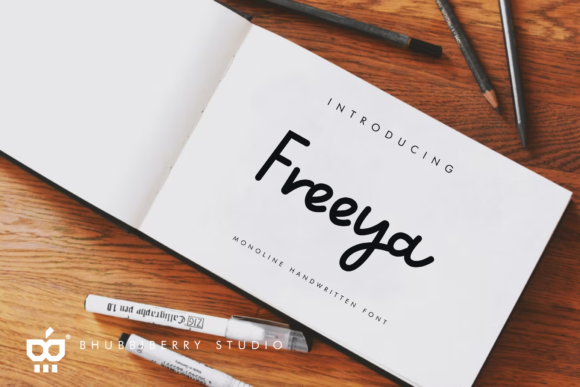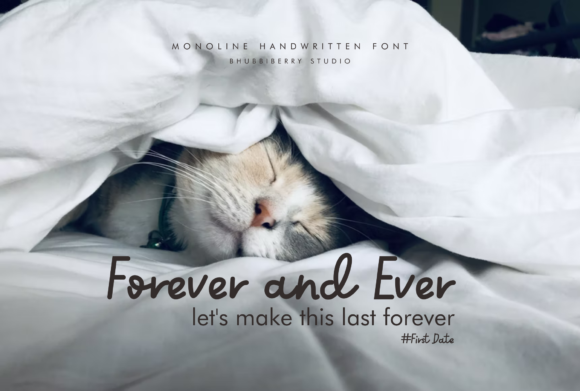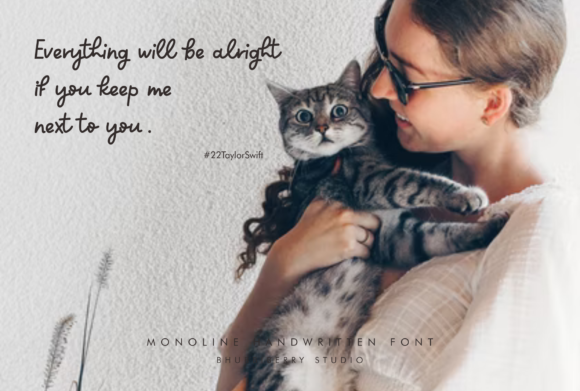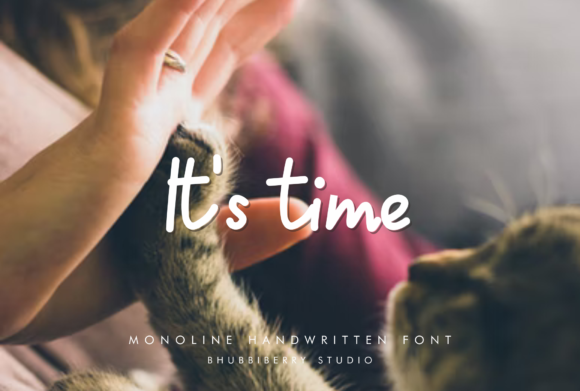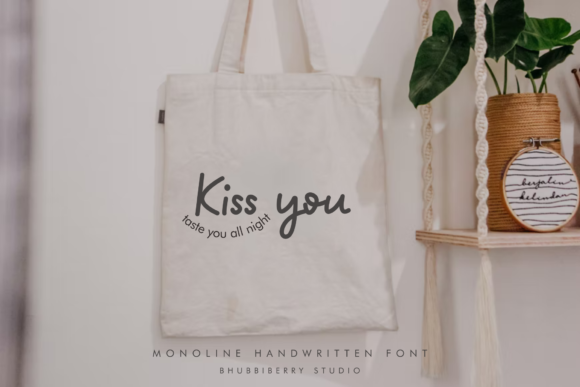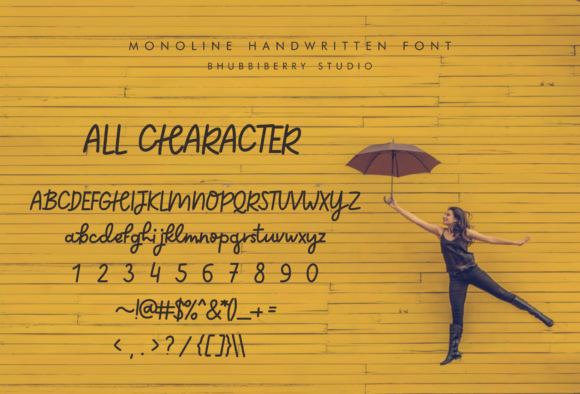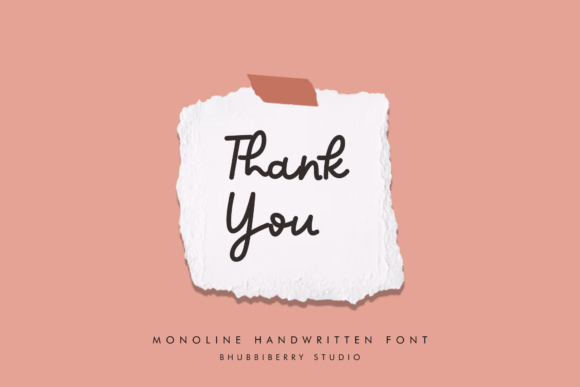
Freeya Font
About Freeya Font
Introducing “Freeya,” a delicate and vintage-styled script font that adds a touch of elegance to your designs. This gorgeous font adapts seamlessly to various design ideas, making it a perfect choice for a wide range of creative projects. Particularly, “Freeya” is well-suited for posters and flyers, enhancing their visual appeal with its vintage charm.
With its delicate and vintage styling, “Freeya” exudes a timeless beauty that can elevate your designs. Whether you’re working on promotional posters or eye-catching flyers, this font brings a touch of elegance that captures attention and creates a lasting impression.
Imagine “Freeya” as the perfect complement to your design endeavors, effortlessly enhancing the aesthetics of your posters and flyers. Its adaptability ensures that it can harmonize with different design elements, making it a versatile choice for various contexts.
In summary, “Freeya” is more than just a font; it’s a delicate and vintage-styled script designed to bring elegance to your creative projects. Let it grace your posters and flyers, adding a timeless beauty that captures the essence of your design vision and resonates with your audience.